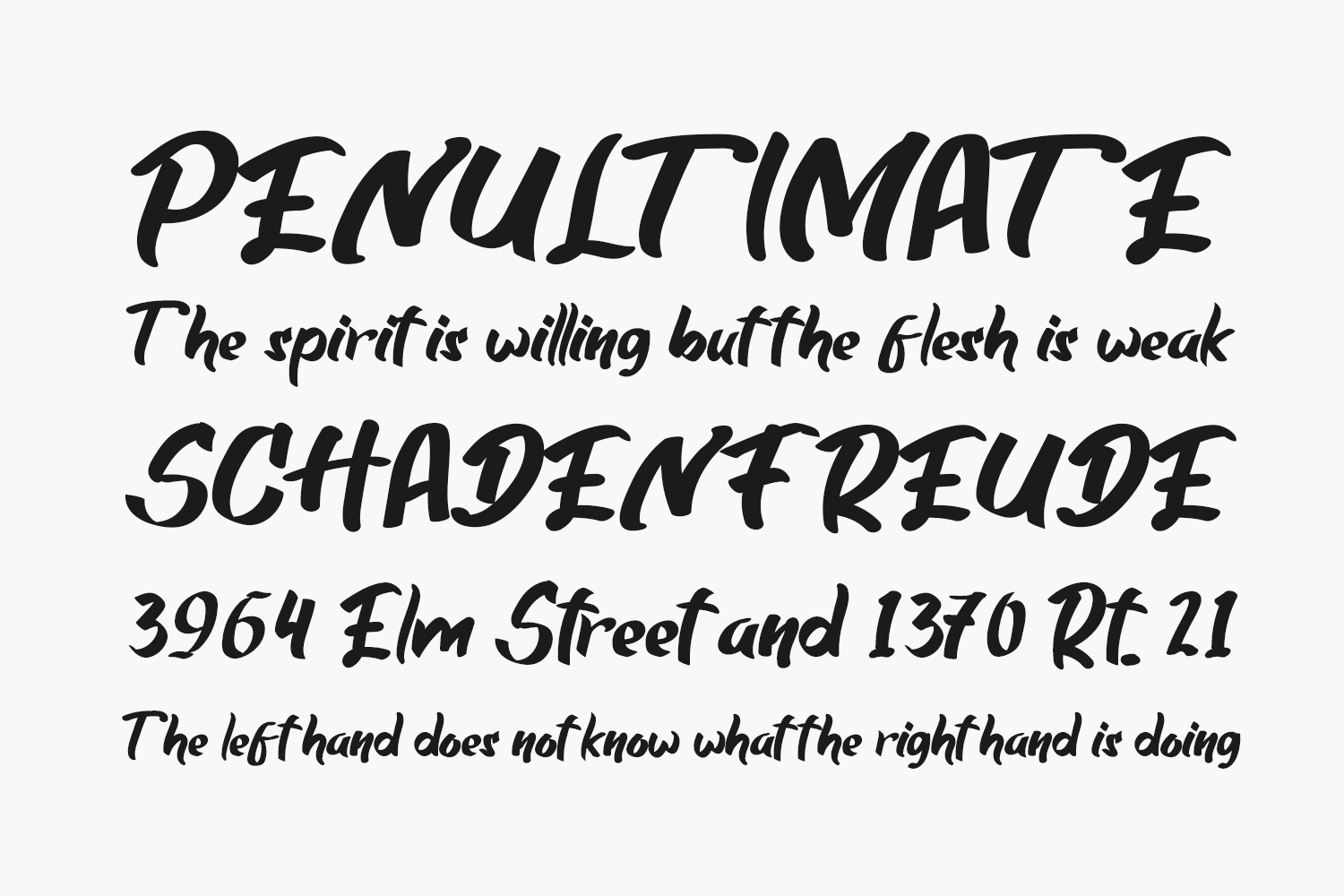
Quantum Free Font is a bold and unique handwritten font, carefully handcrafted to become a true favorite. This font is the perfect fit for all of your logos, branding, social media, and crafty DIY projects. Quantum Free Font was designed by Inermedia Studio and is free for personal use only. Please purchase the full version for commercial use.
Designed by Inermedia Studio